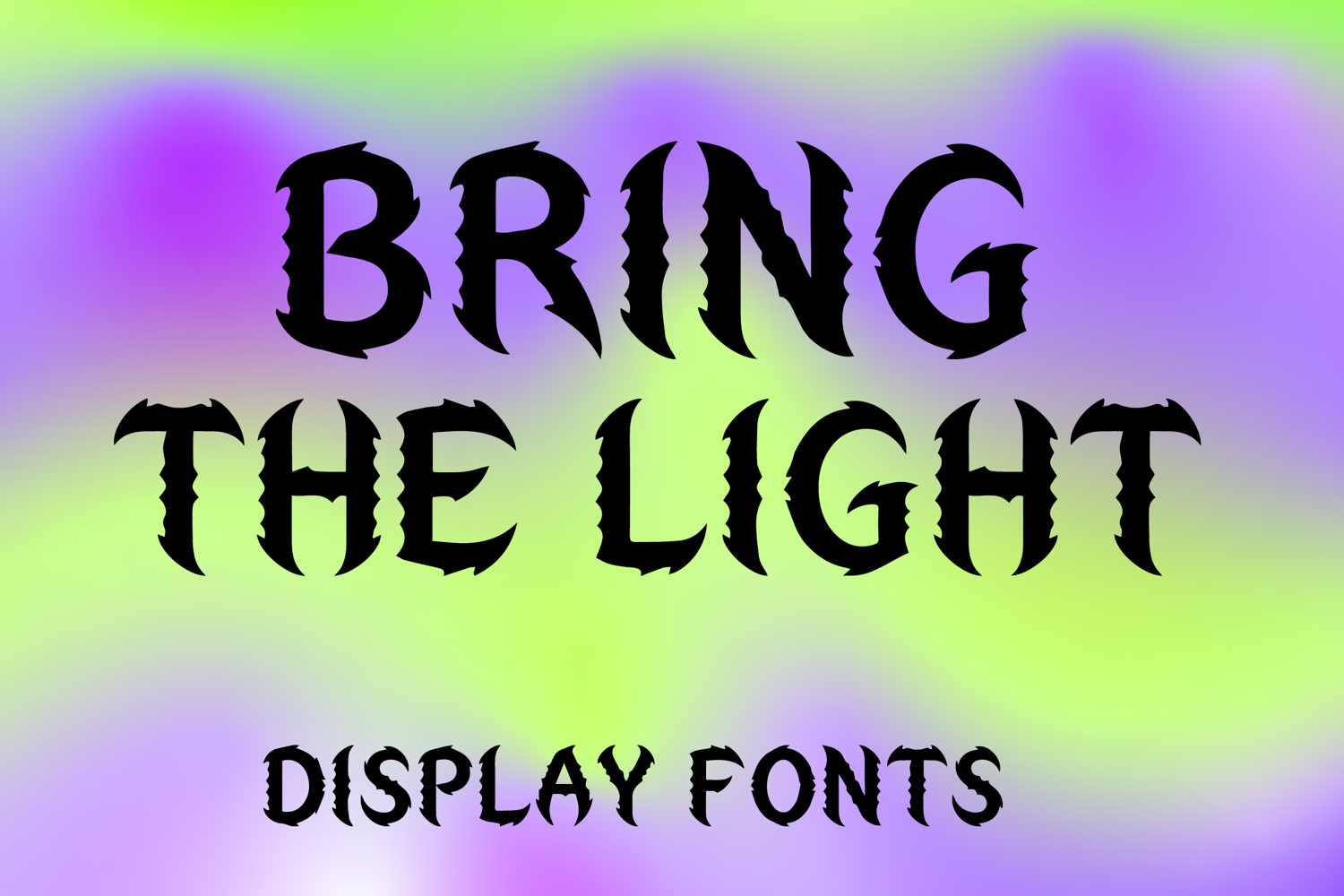
BRING THE LIGHT
BRING THE LIGHT is a bold decorative display font with a dramatic fantasy-inspired style and fierce artistic energy. Its uppercase letterforms feature sharp jagged edges, textured cut details, and striking gothic character that create a powerful, mysterious, and eye-catching look. Designed with uppercase letters A–Z and numbers 0–9, BRING THE LIGHT is perfect for branding, posters, book covers, album art, logos, and creative projects that need a bold and unforgettable statement.